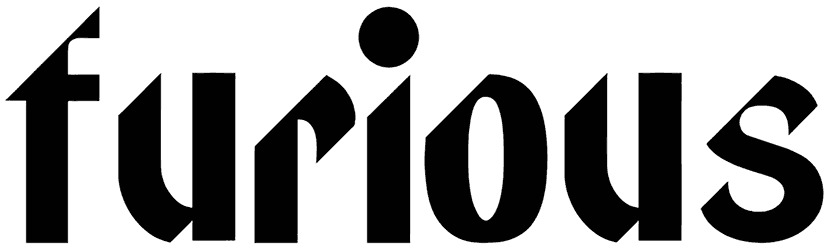
Furious Font
Furious is the result of adding a bit of creativity to a modern sans serif font that leads to forming a futuristic and eye-grabbing masterpiece. This display font comes with a bold style, and the edges of its characters are diagonal, so it looks insanely perfect on video game posters, logos, merchandise, wood engravings, or social media posts.